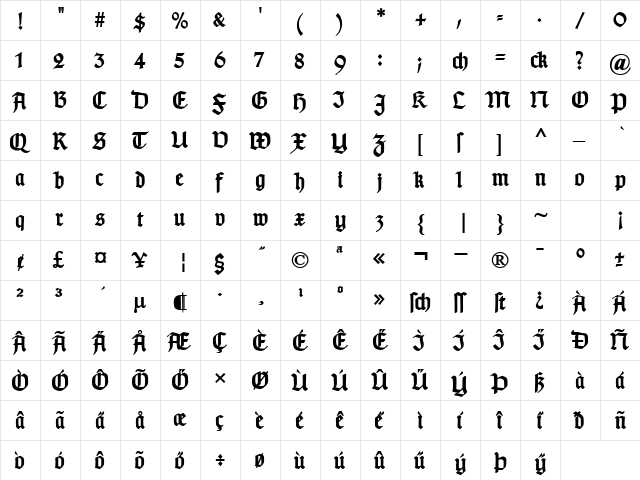
TypographerGotisch D Bold
| Designer | Dieter Steffmann |
Design Context for TypographerGotisch D Typeface
TypographerGotisch D is a composed and adaptable typeface that performs quietly and consistently across a wide range of design contexts. Its bold stroke weight gives it real presence on the page.